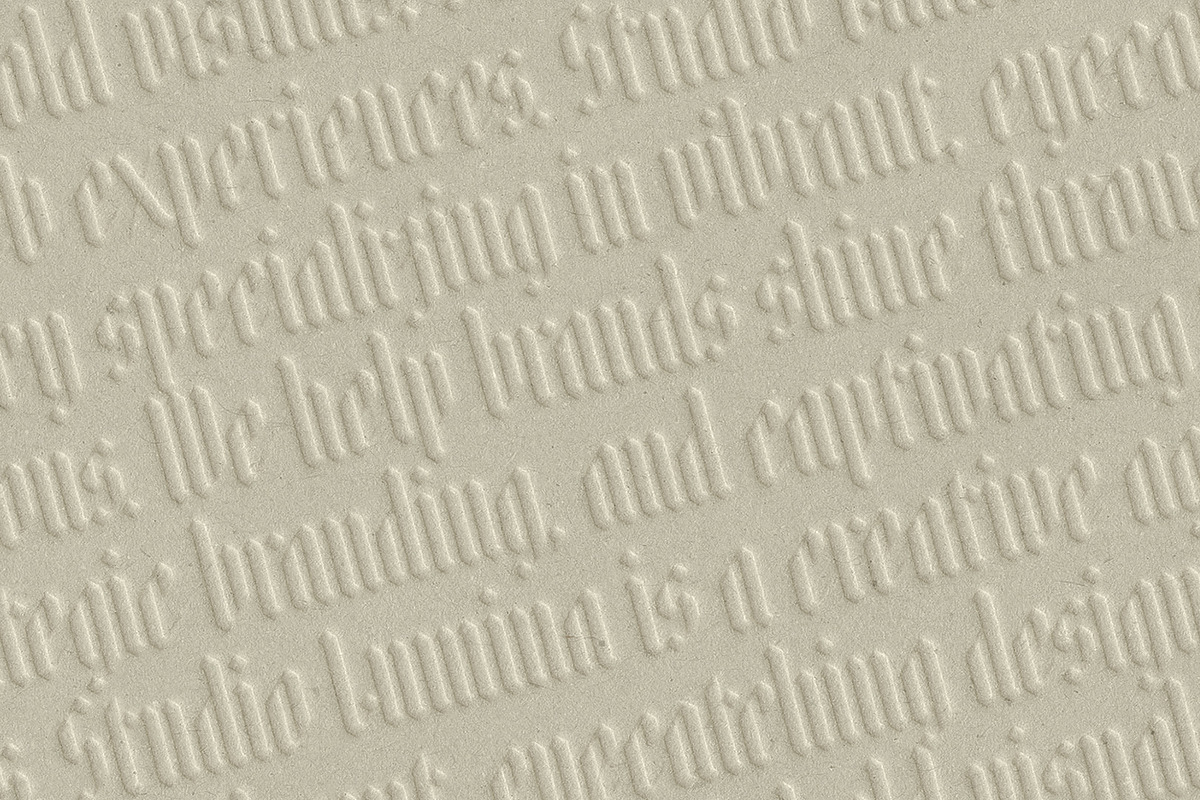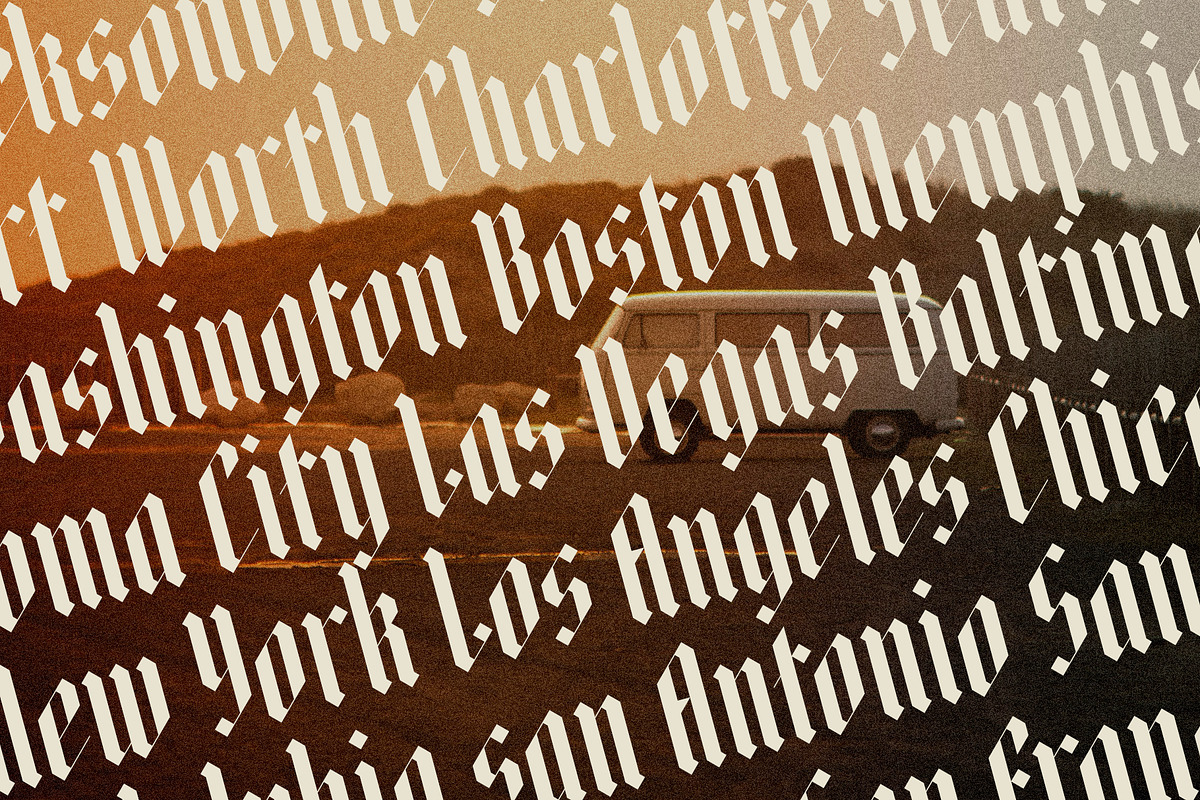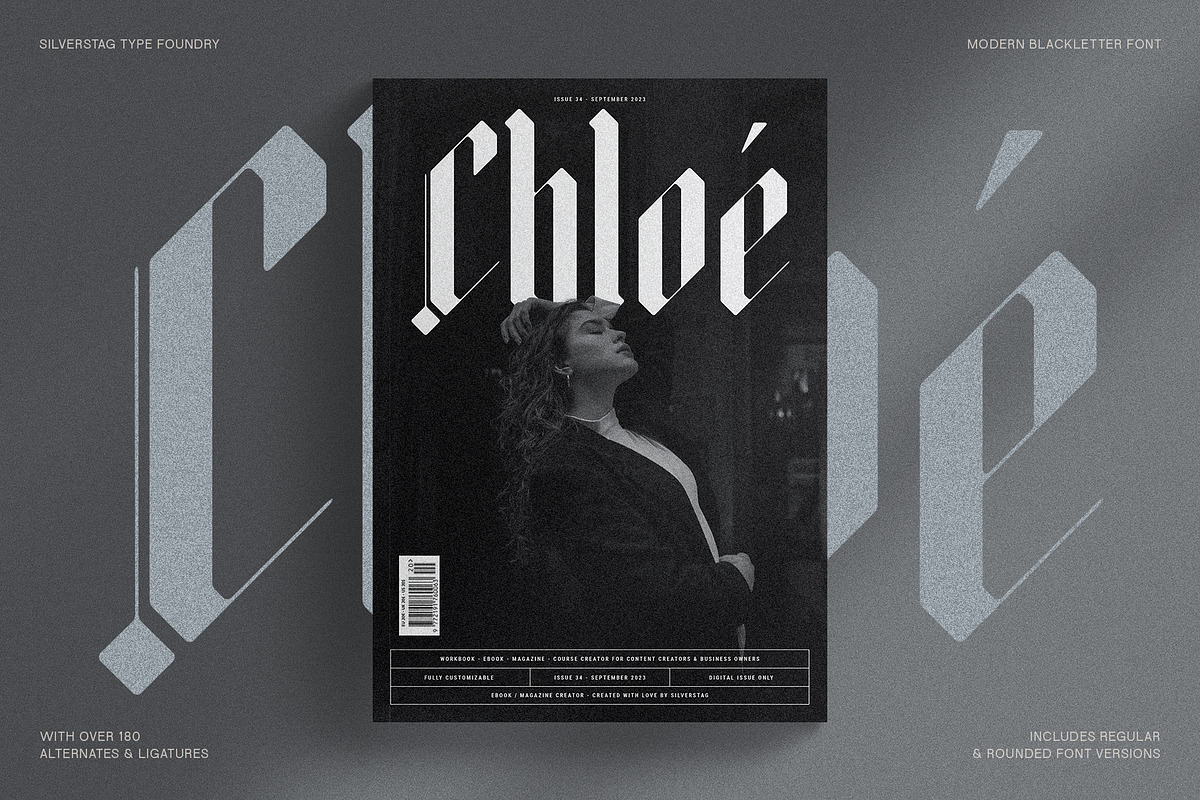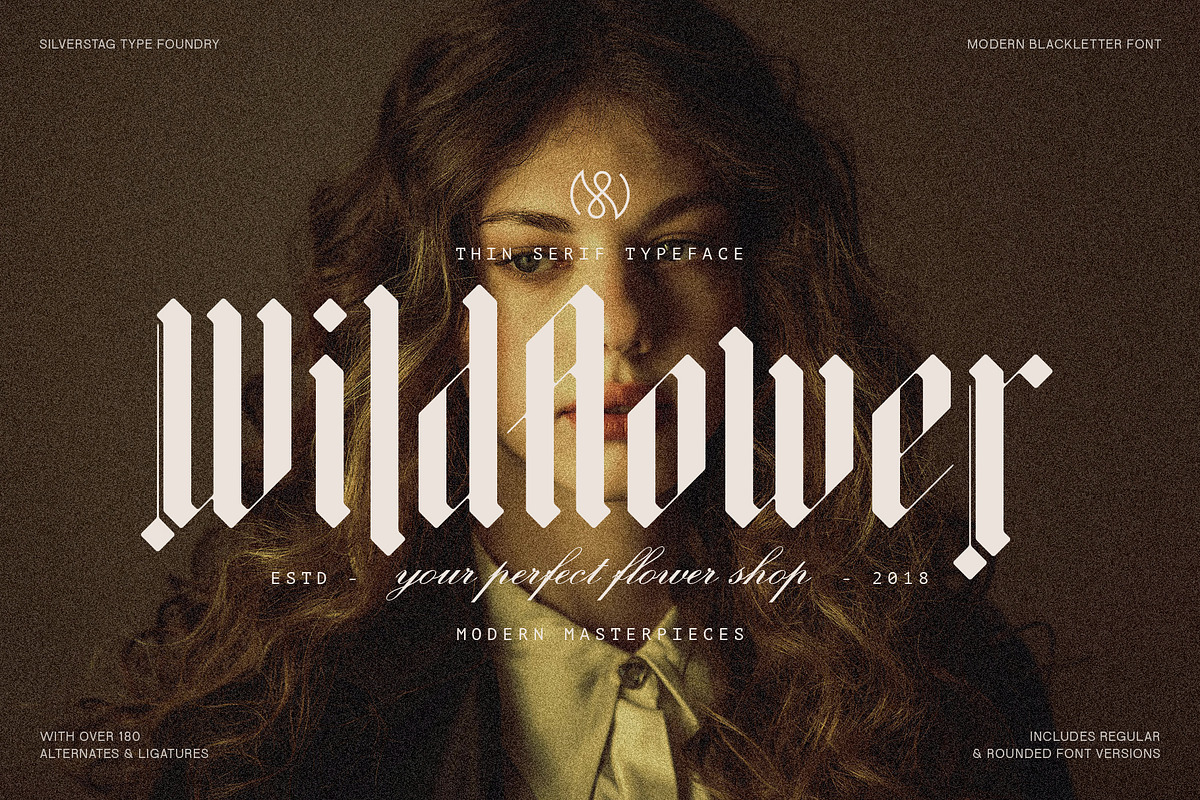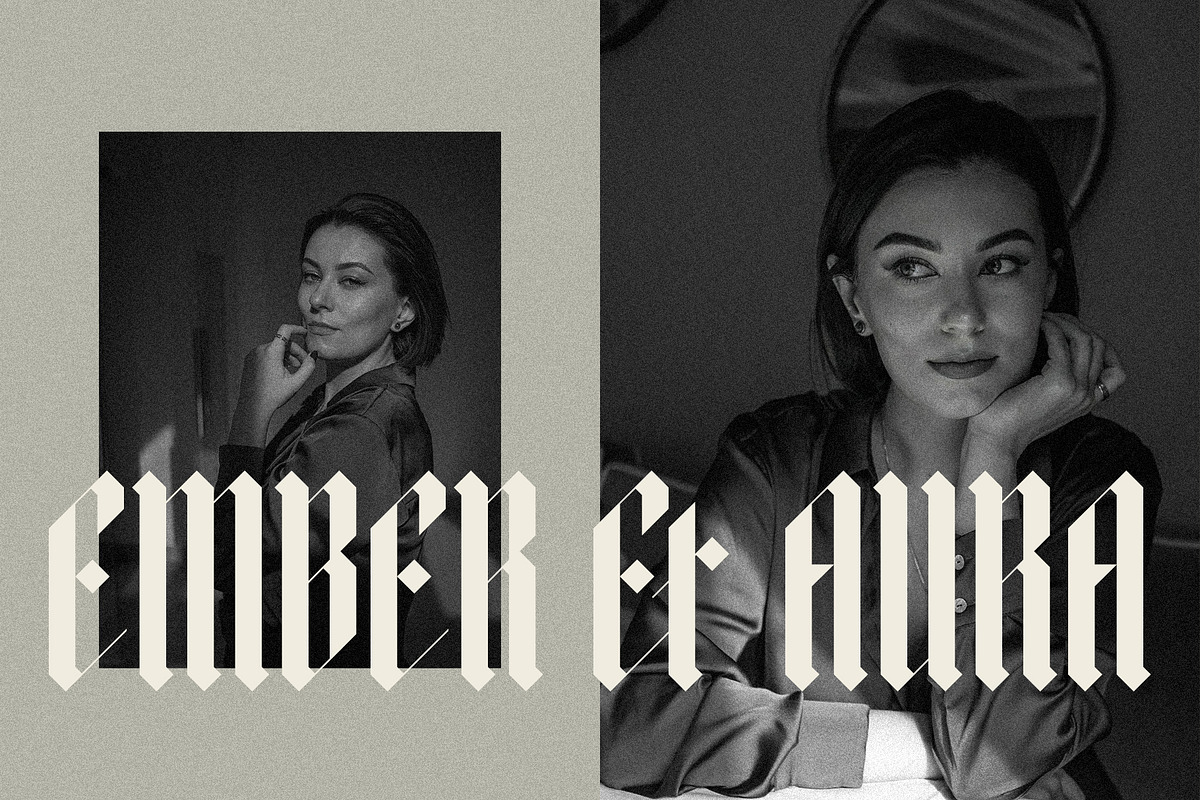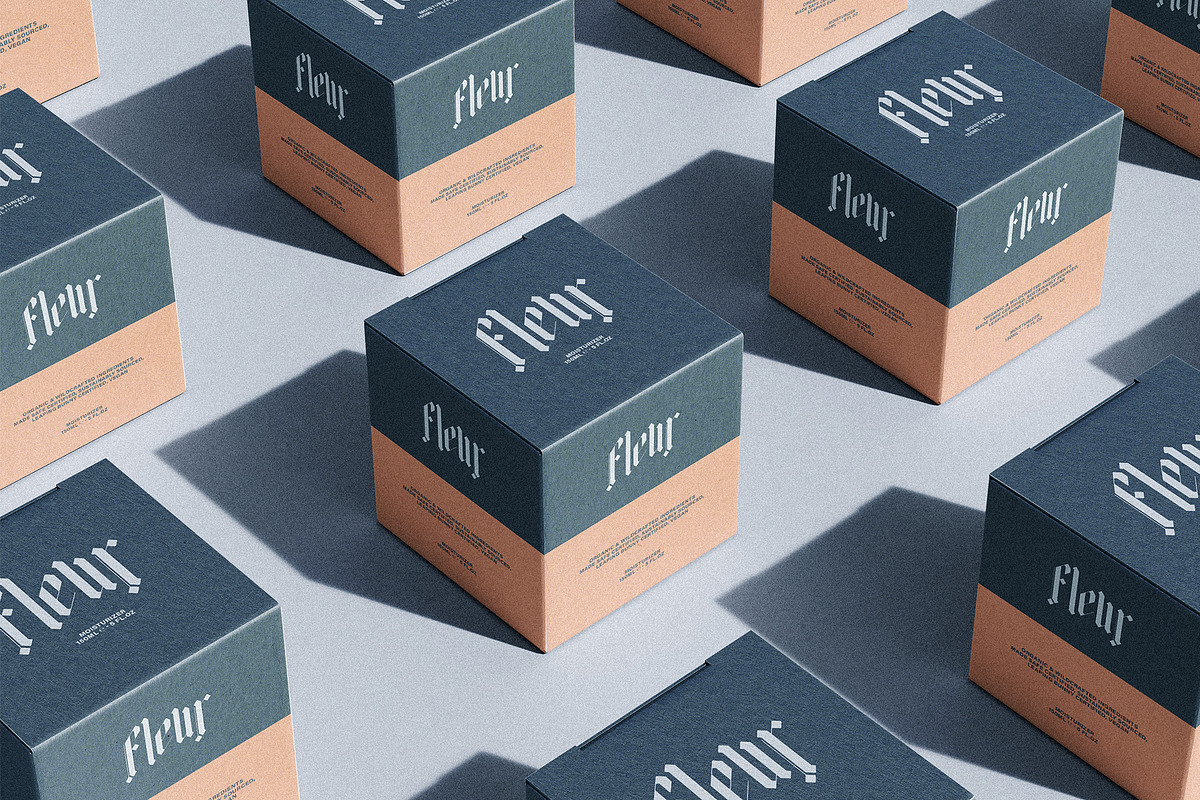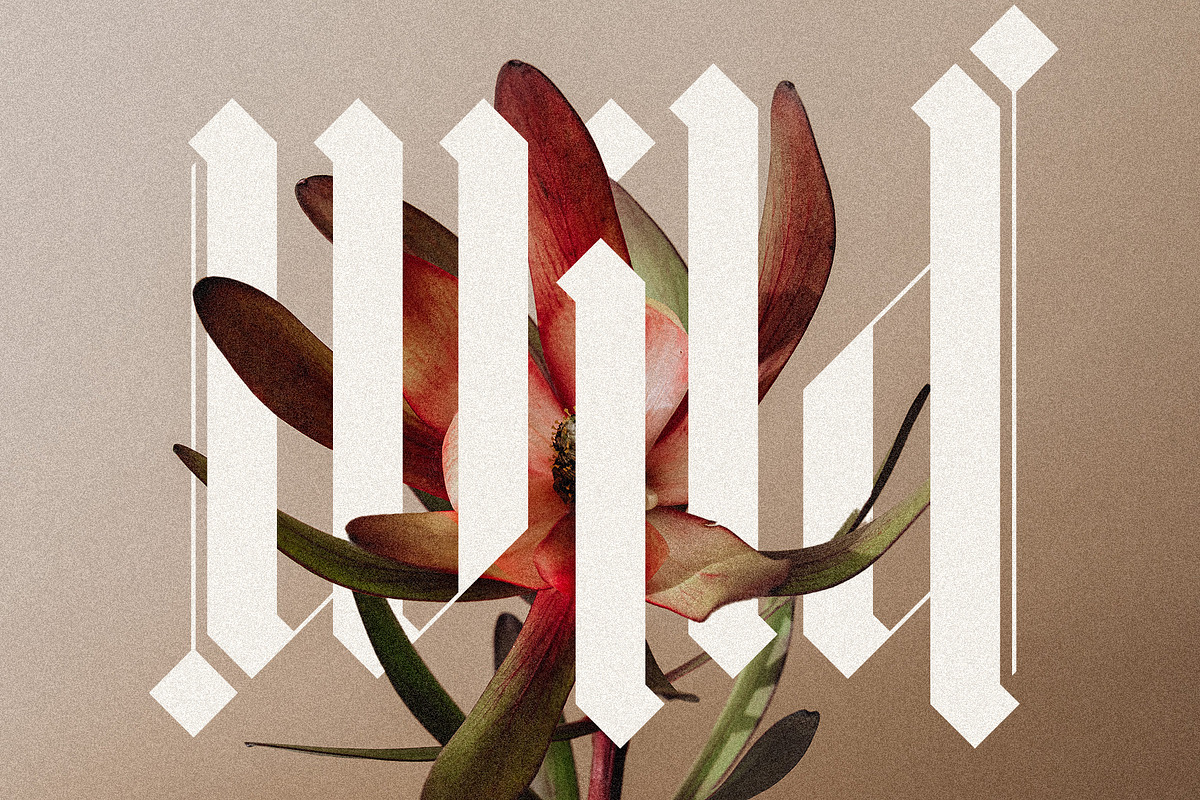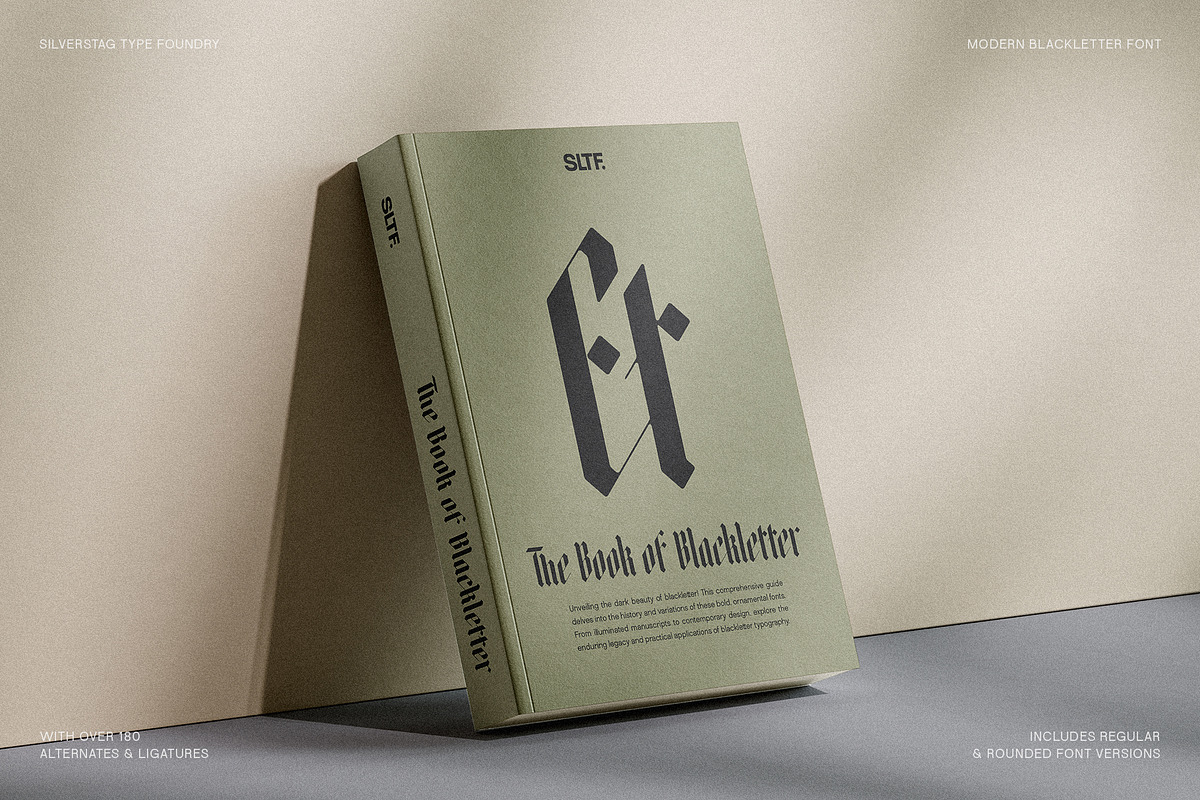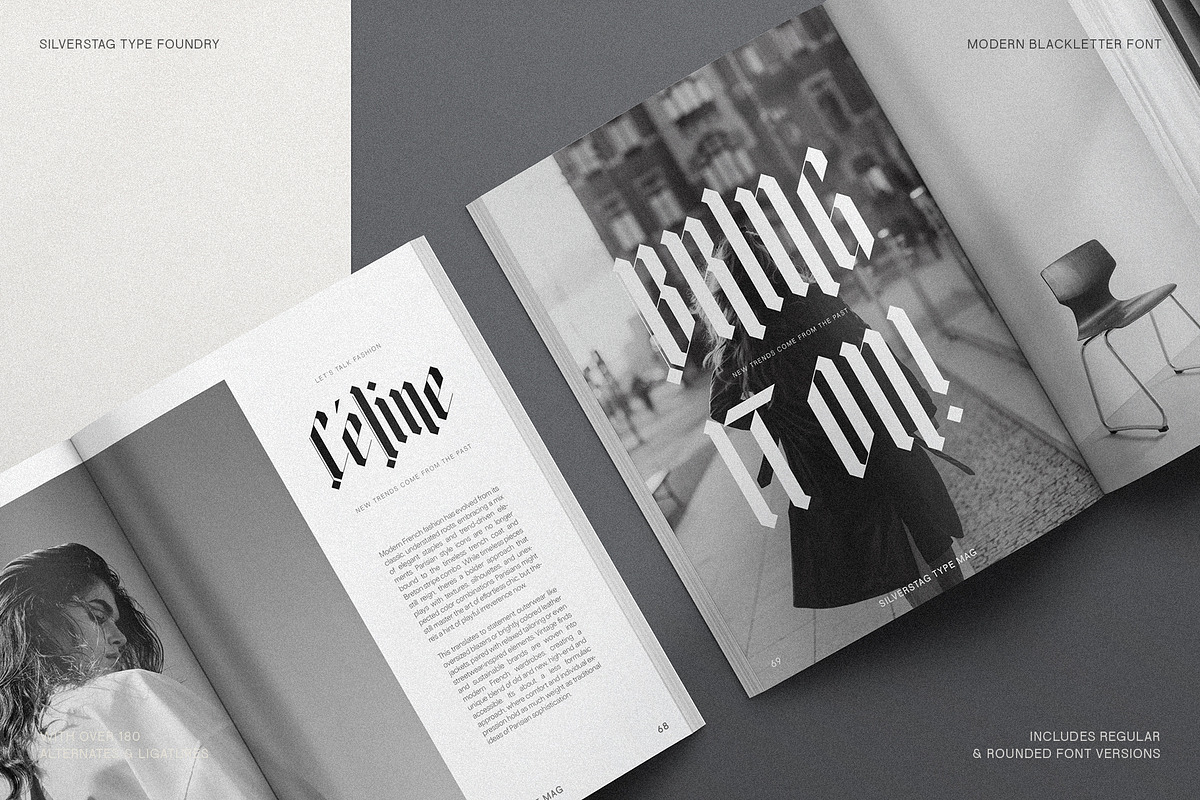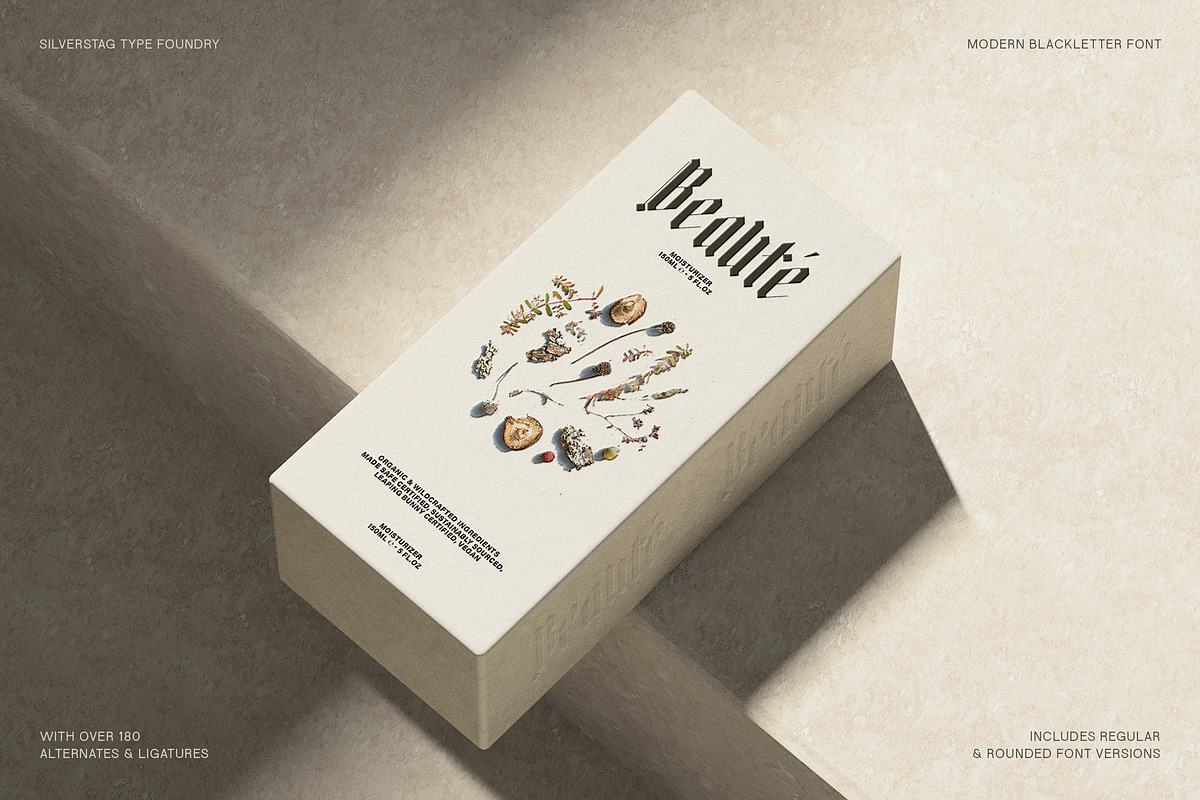
Rymaki - Modern Blackletter Font
Introducing Rymaki: A Modern Blackletter Typeface with Timeless Power
Embrace the bold spirit of blackletter typography, reimagined for the modern designer. Rymaki delivers the ornate richness of traditional blackletter with a sleek, contemporary edge. This versatile typeface is packed with features to ignite your creativity.
- Expansive Character Set: Over 560 glyphs, including extensive language support for over 90 languages and 180+ stylistic alternates and ligatures. Craft globally impactful designs and add unique flourishes to your work.
- Modern Meets Traditional: Rymaki masterfully blends classic blackletter forms with clean lines and subtle refinement, making it relevant across a wide range of projects.
- Ultimate Pairing Power: Pairs seamlessly with minimalist sans serifs for striking contrast. Perfect for logos, headlines, posters, packaging, editorial design – the possibilities are endless.
- Regular and Rounded Variations: Choose the classic Rymaki for maximum impact or opt for the gently rounded version for a softer, more approachable look.
- Versatile and Expressive: Rymaki infuses your work with a touch of history, a dash of rebellion, and a whole lot of contemporary style.
Experience the Dynamic Beauty of Rymaki
Whether you're crafting edgy streetwear branding, dramatic website headers, or eye-catching social media graphics, Rymaki commands attention. Its unique blend of historic charm and modern sensibility sets your designs apart.